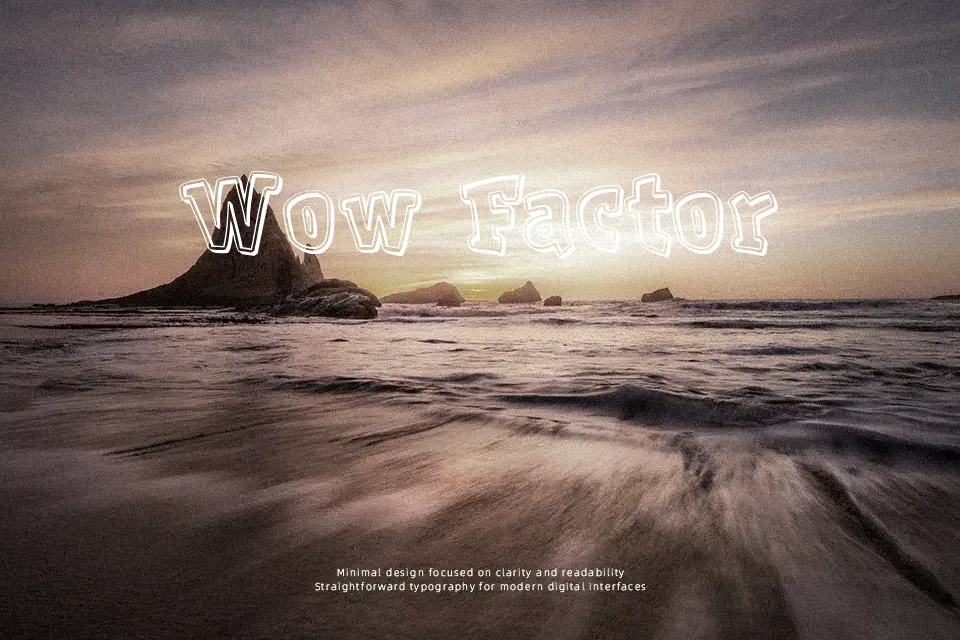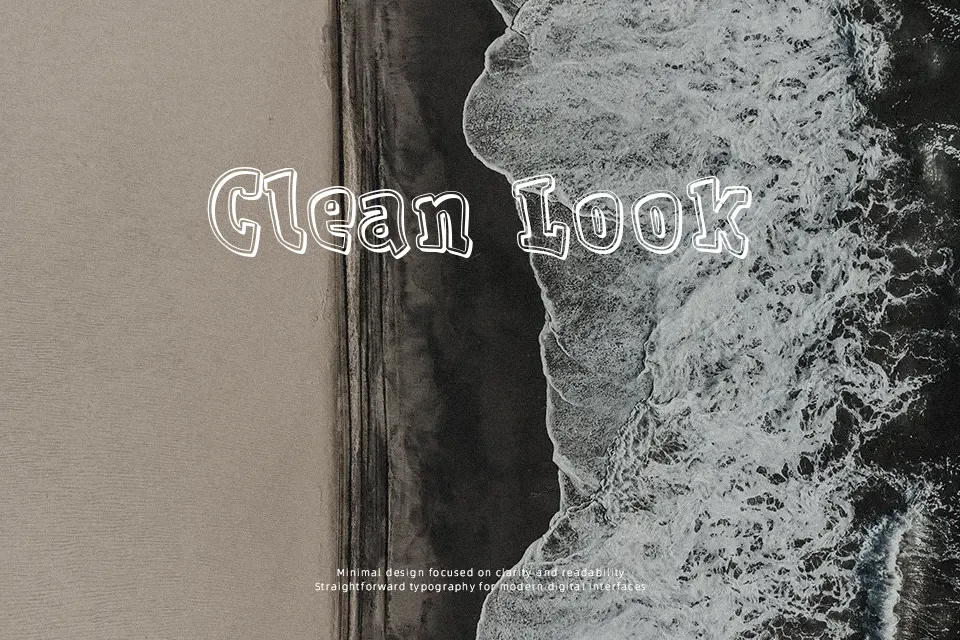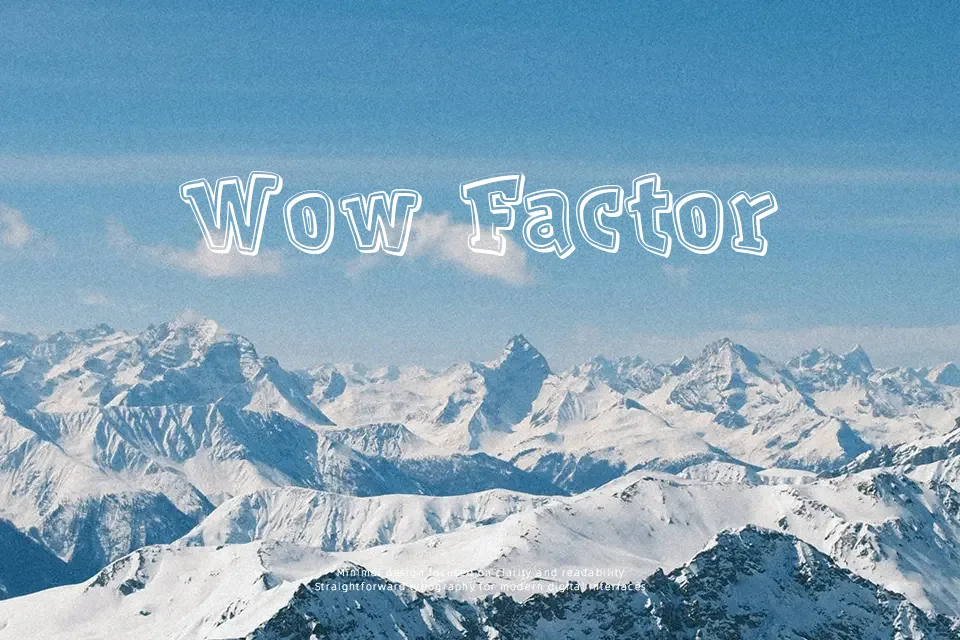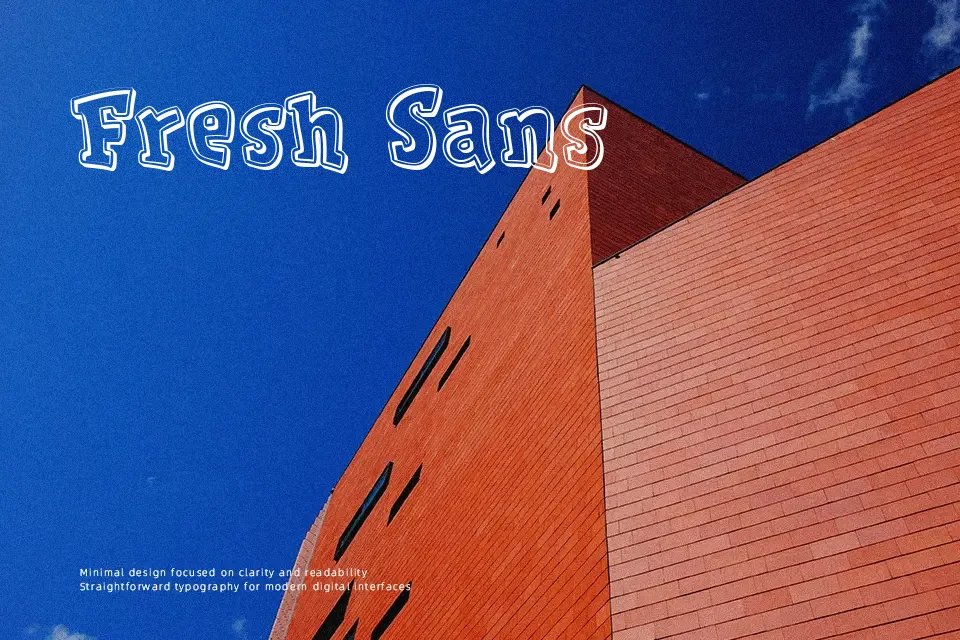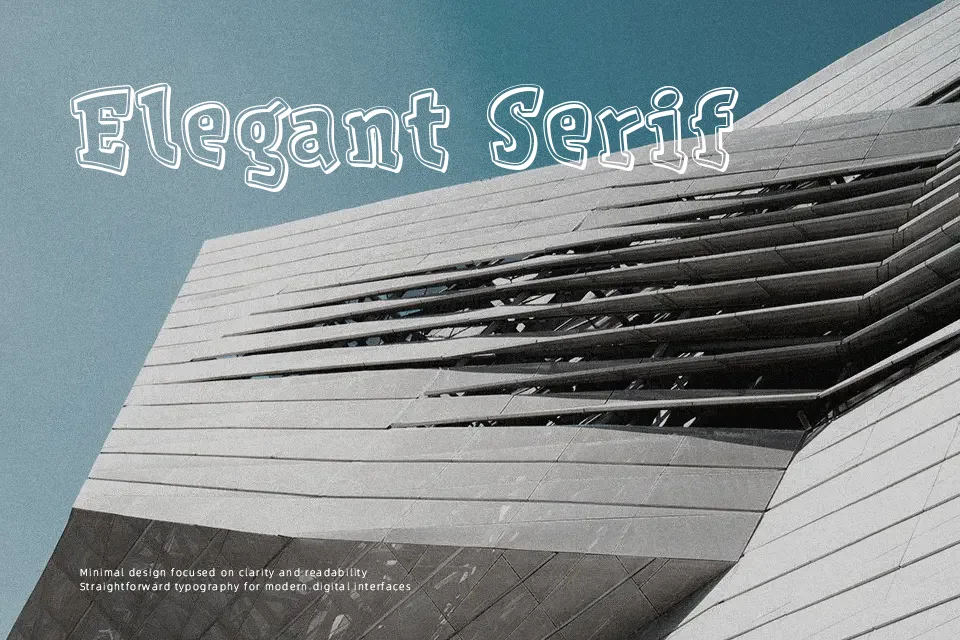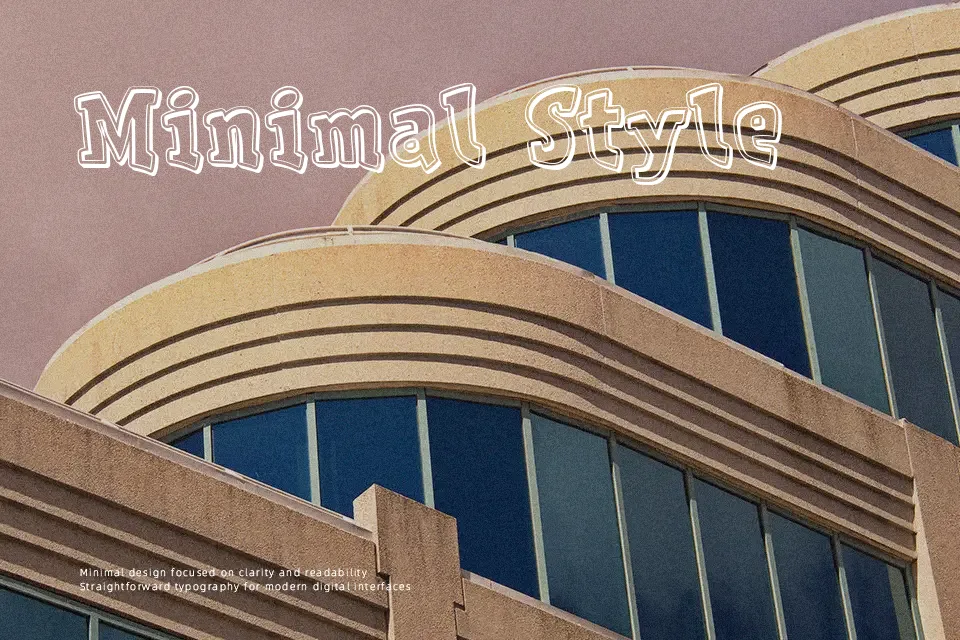
V de vacía Font
Designed by deFharo
V de vacía Font delivers a playful visual impression through hollow, hand-drawn letterforms defined by thick exterior outlines and open internal counters. The stroke contours exhibit slight irregularities and rounded corners, creating animated proportions that maintain adequate clarity across medium and large display headings. Consistent baseline alignment preserves horizontal rhythm, though internal empty spaces require sufficient scale to stay distinct. The typeface performs reliably in comic book headings, animated title screens, and toy packaging graphics. Dense editorial body text remains unsuitable because the hollow forms create visual vibration and significantly reduce readability in multi-line paragraphs.
comic book titles
toy product packaging
children party invitations
animated video thumbnails
continuous paragraph text
mobile application interfaces
legal contracts
dense financial tables